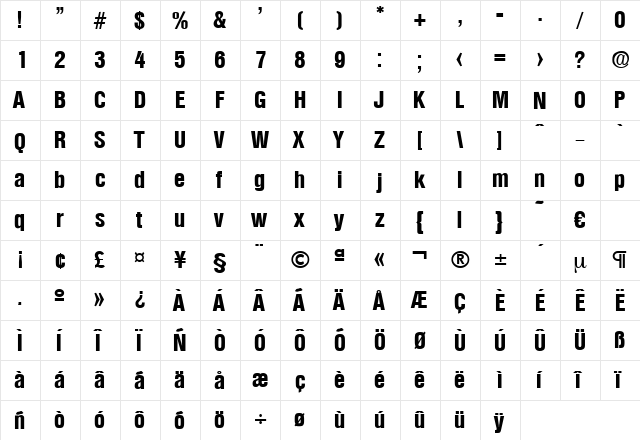
Olympia-BoldCond Regular
Design Context for Olympia-BoldCond Typeface
Olympia-BoldCond is a composed and adaptable typeface that performs quietly and consistently across a wide range of design contexts. Its bold stroke weight gives it real presence on the page. The condensed width makes it efficient for tight spaces without sacrificing legibility.